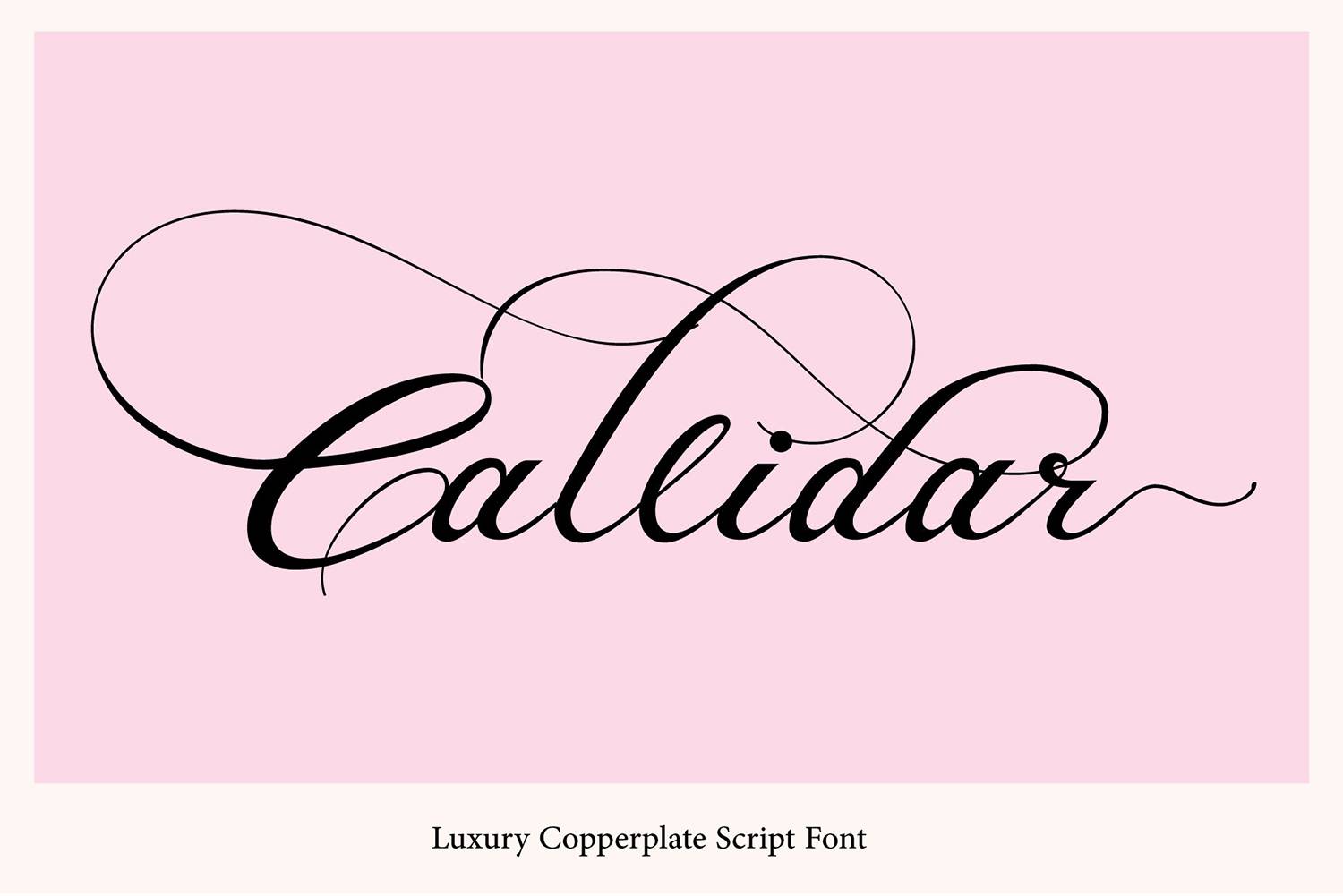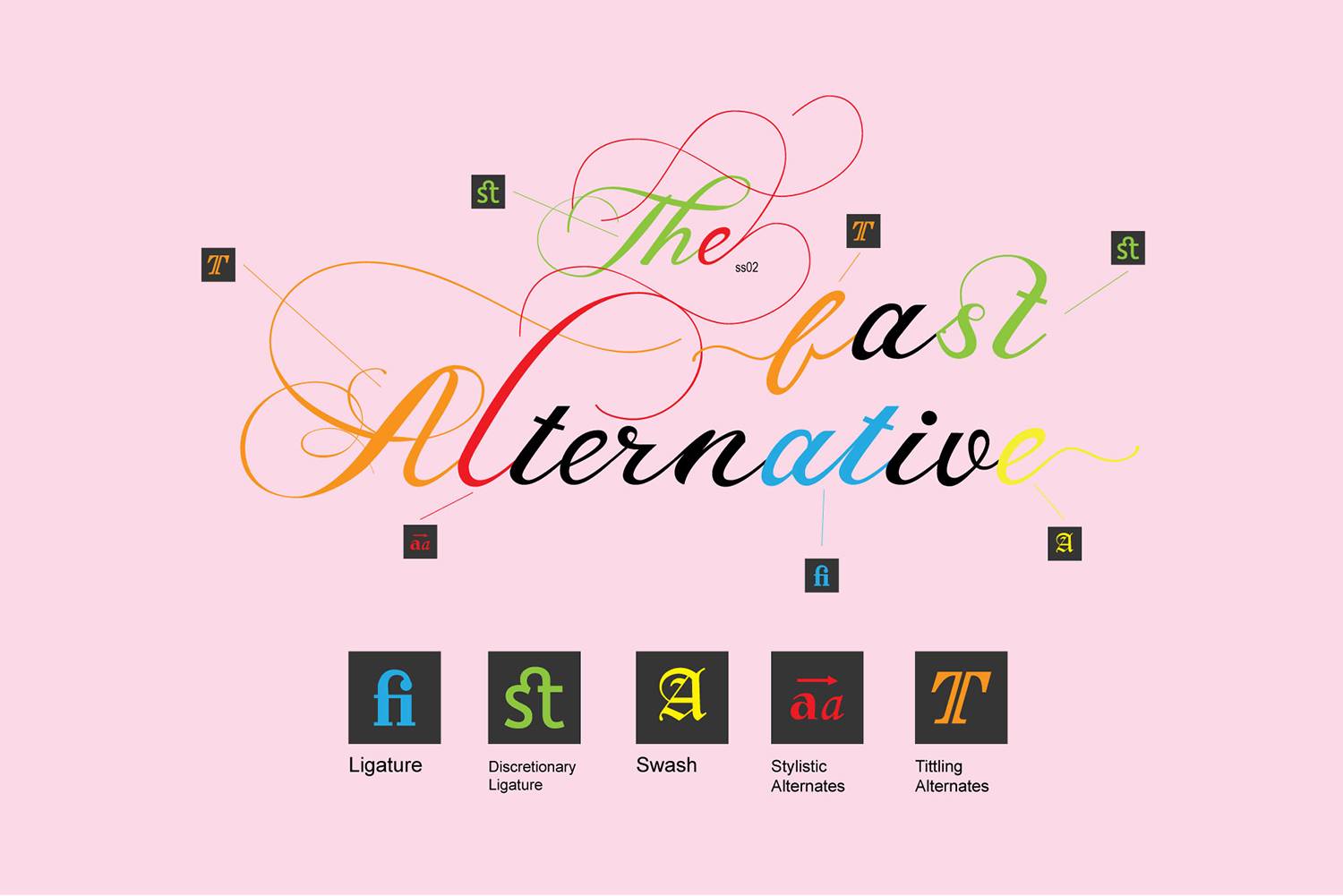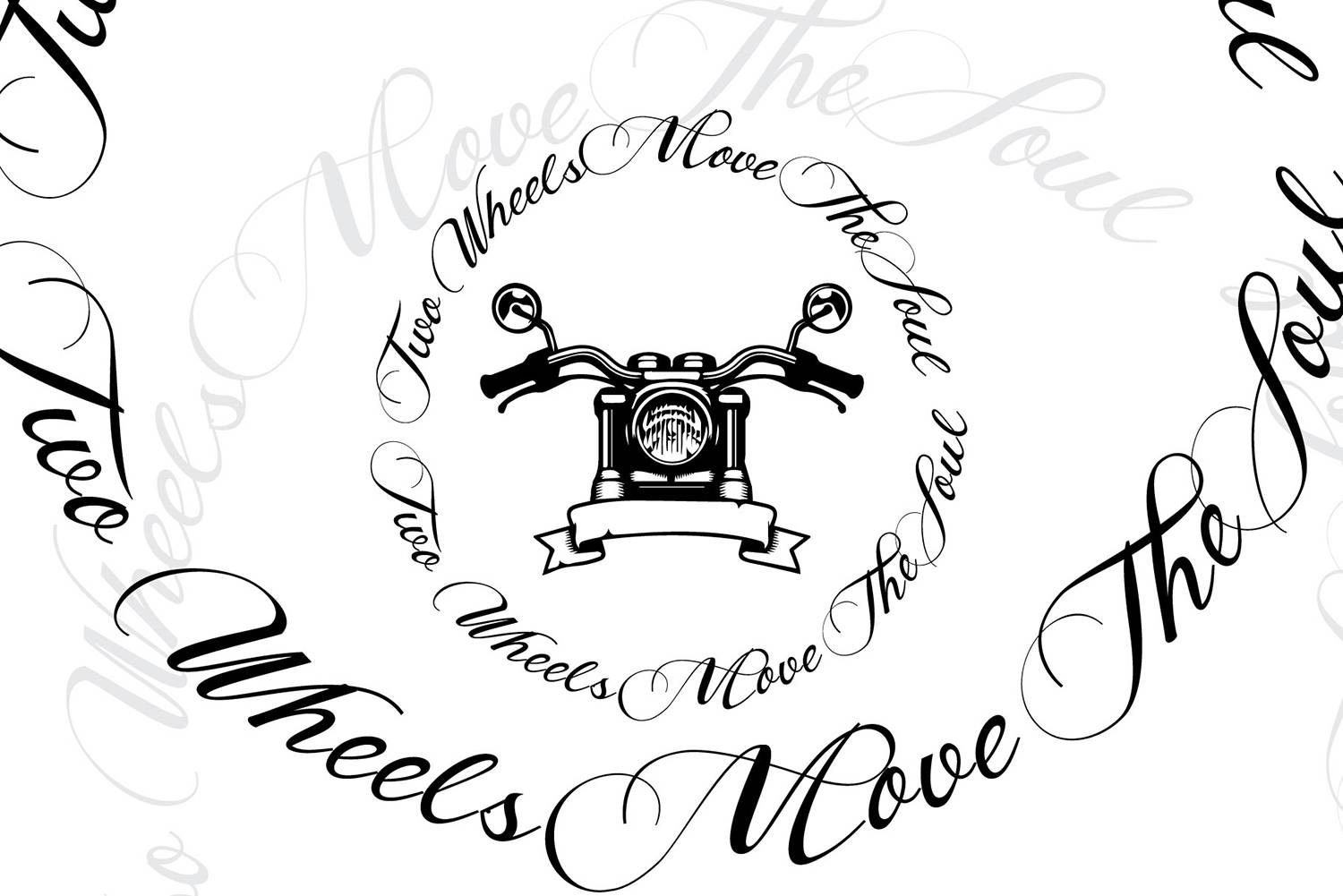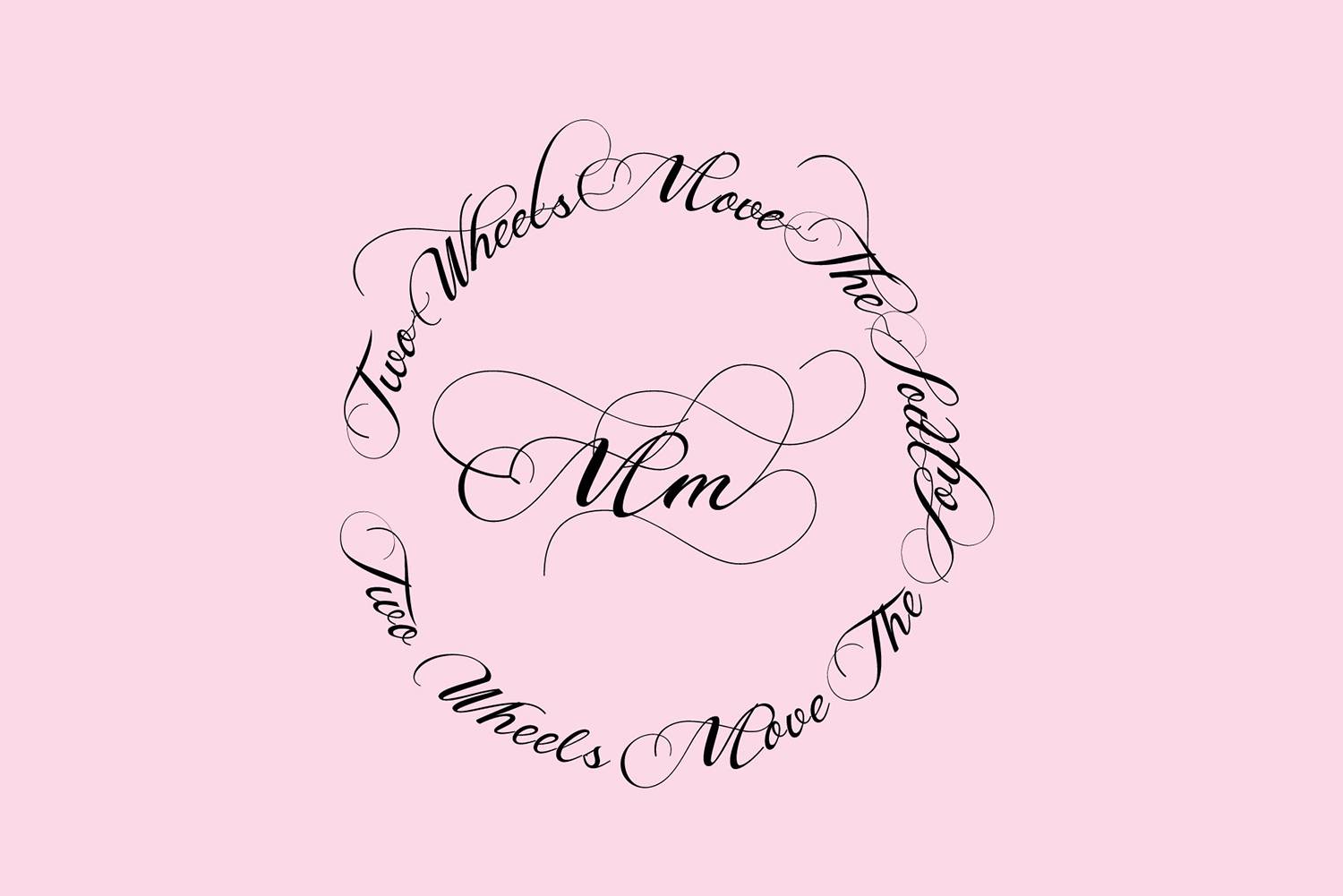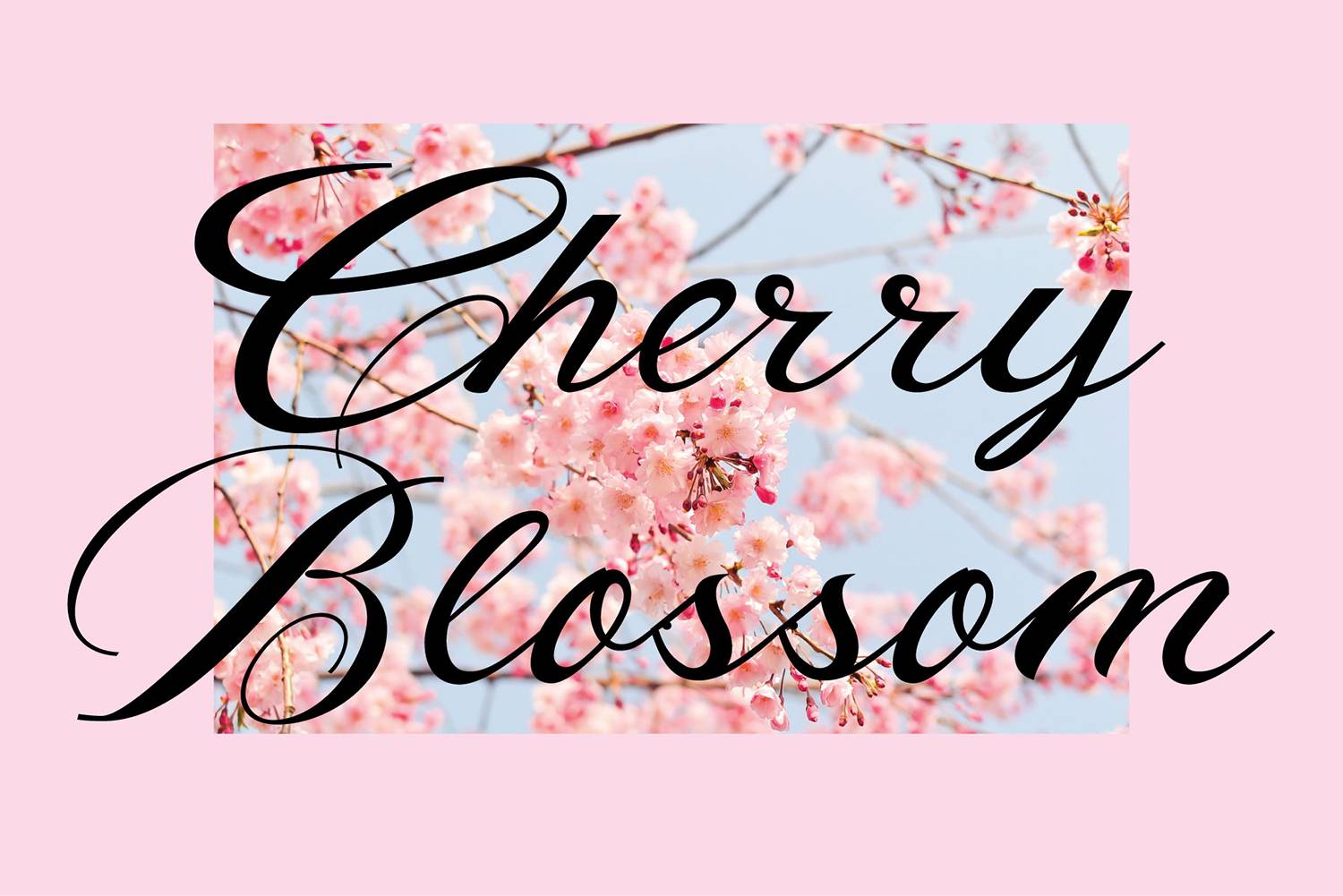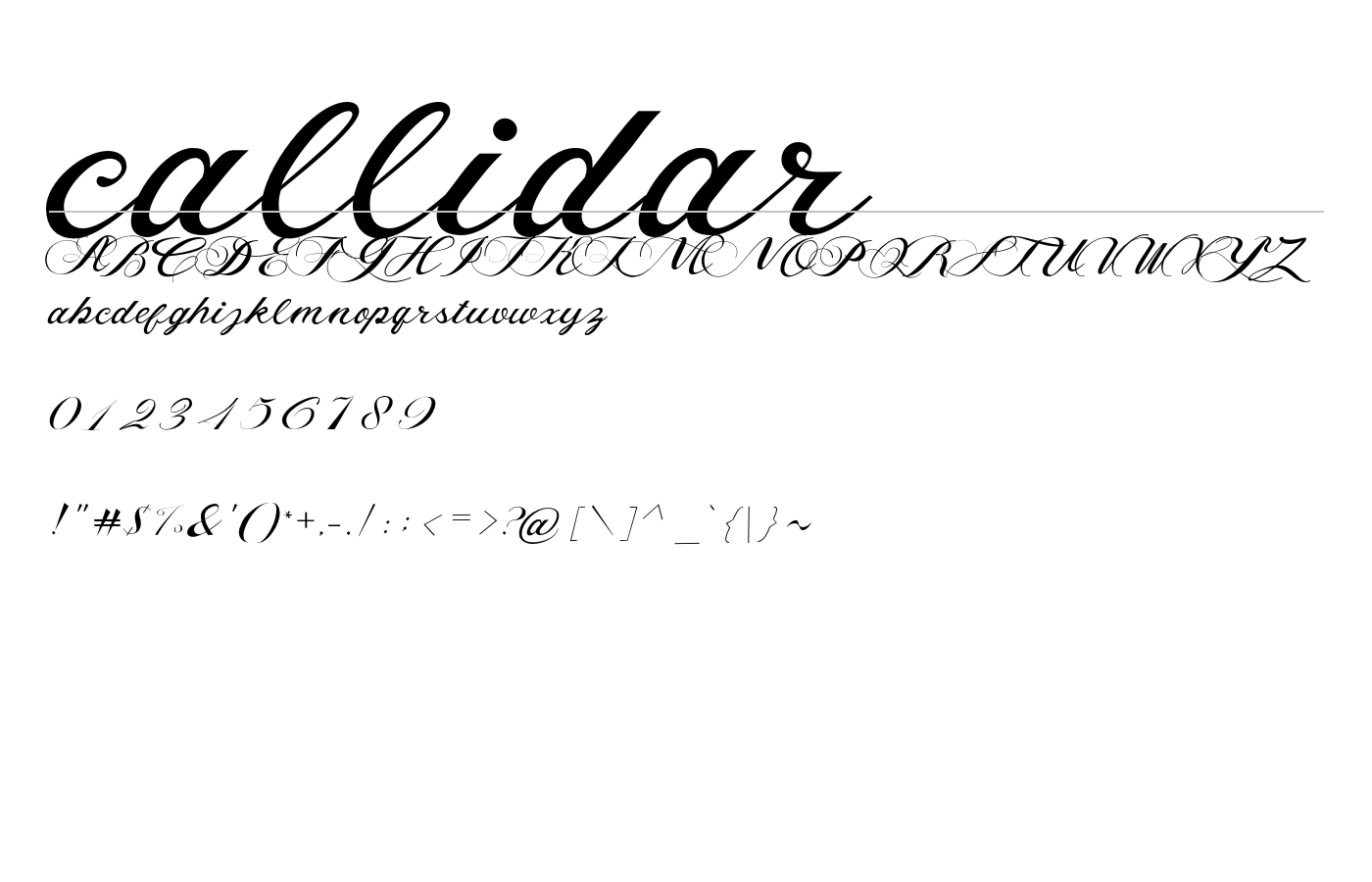
Callidar is an elegant script font characterized by its flowing, calligraphic style with a strong contrast between thick and thin strokes. Its sophisticated curves and delicate swashes make it ideal for luxury branding, invitations, and editorial design where a refined and graceful touch is desired. This font’s classic yet expressive appearance lends itself well to projects that want to convey a sense of tradition and artistry.
Callidar Font
About Callidar Font